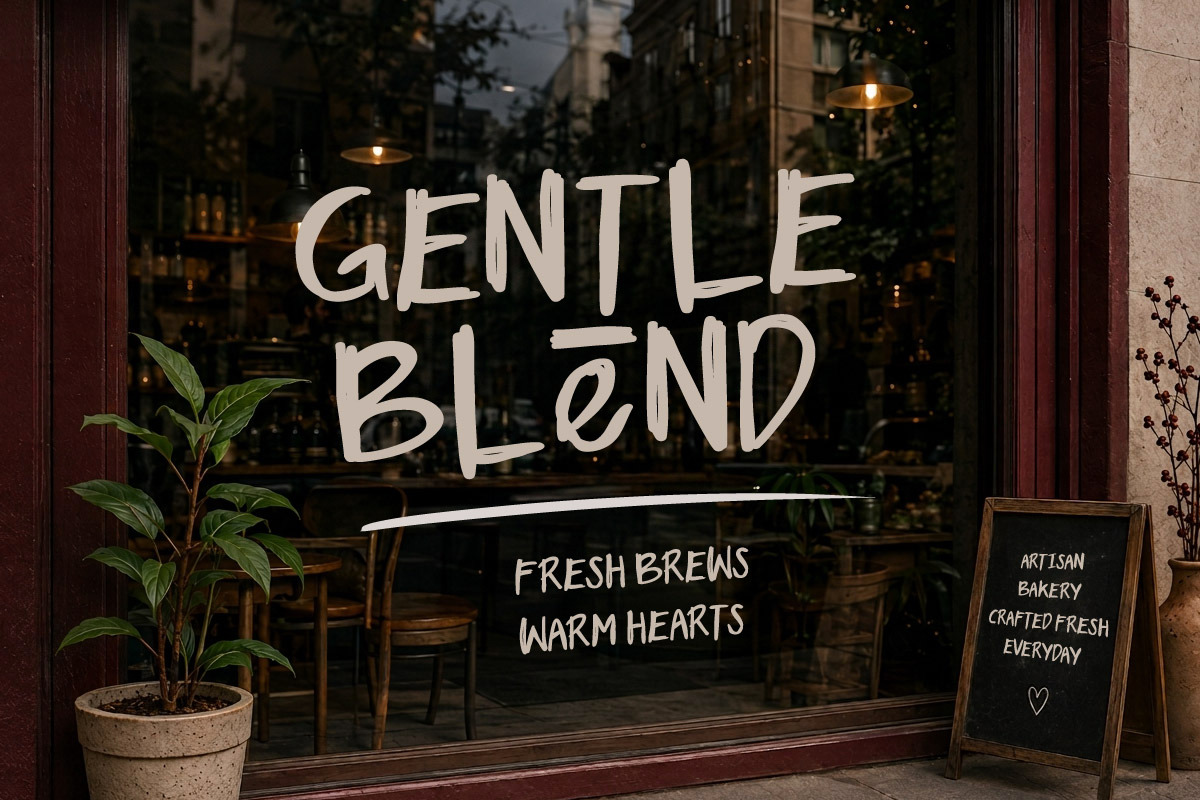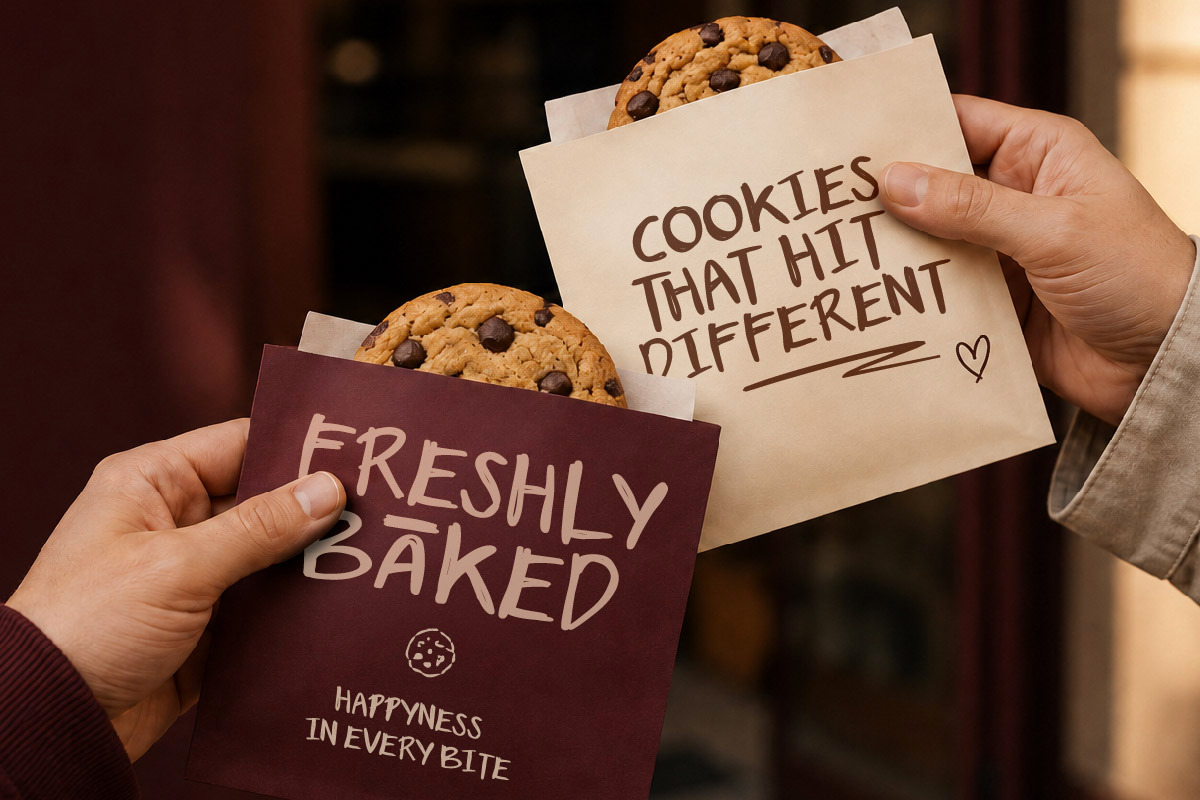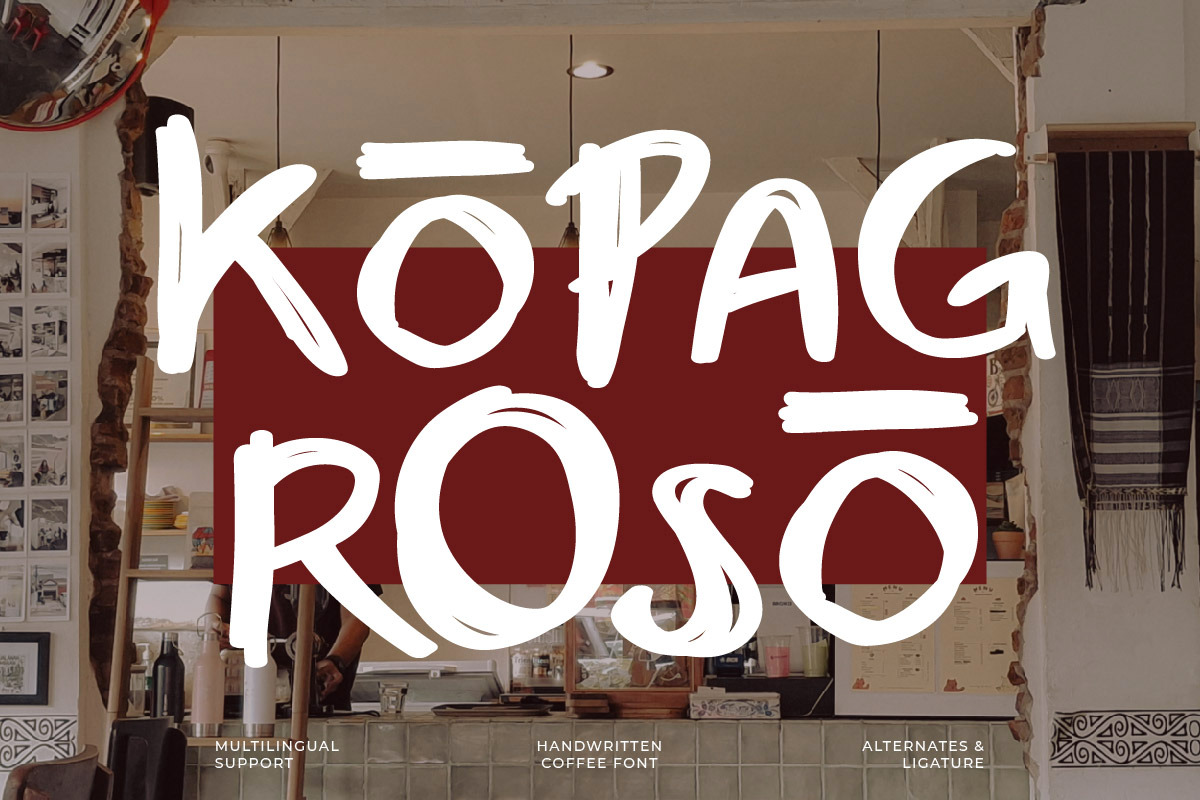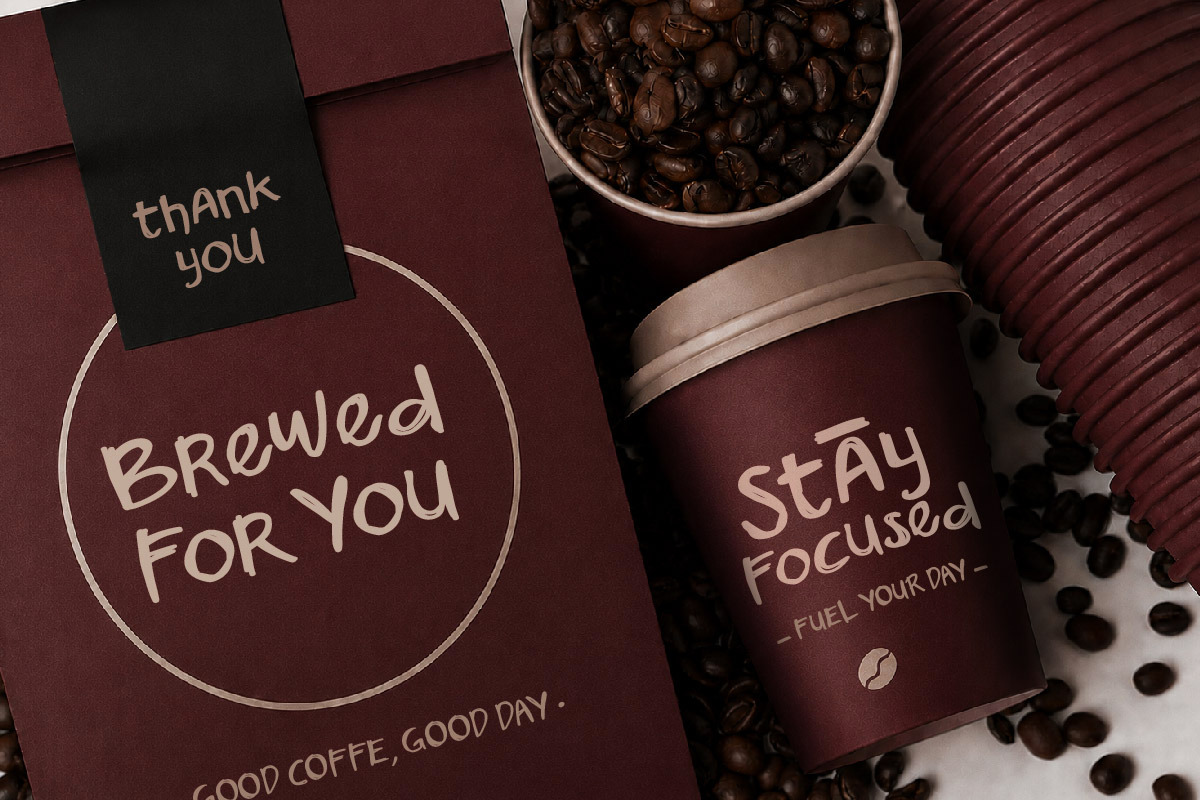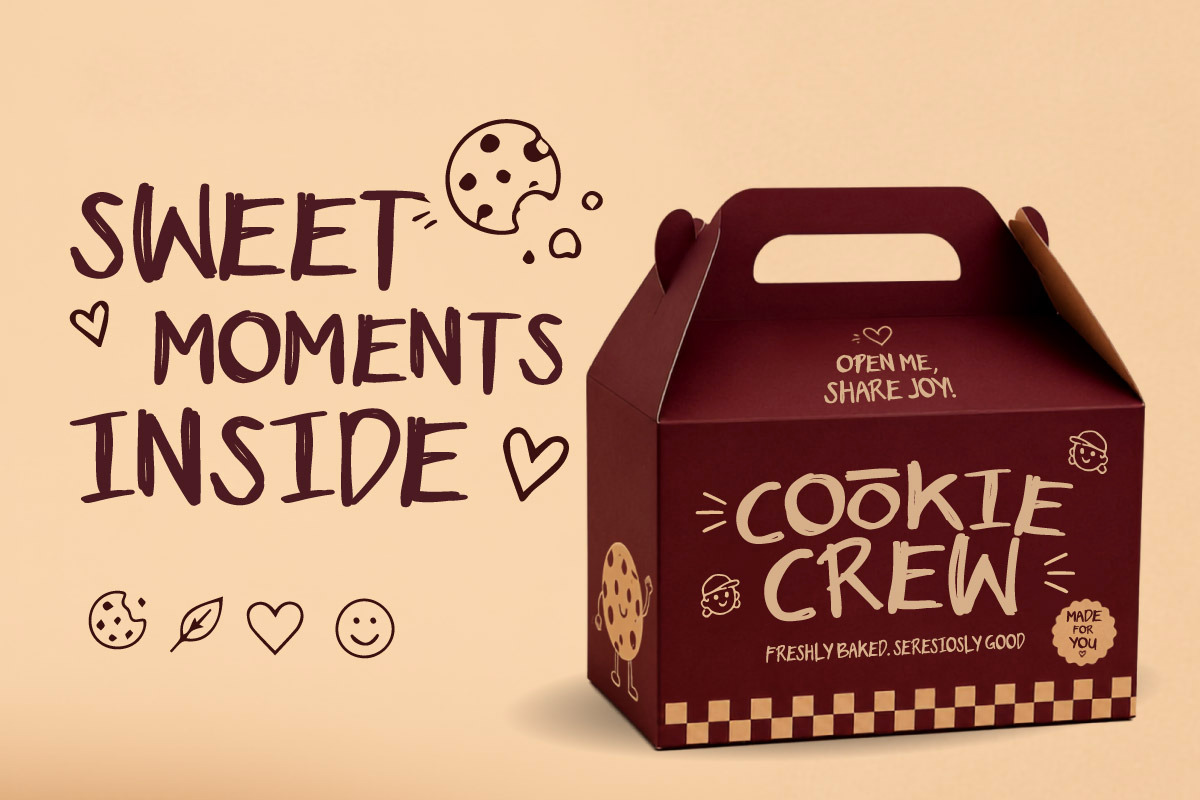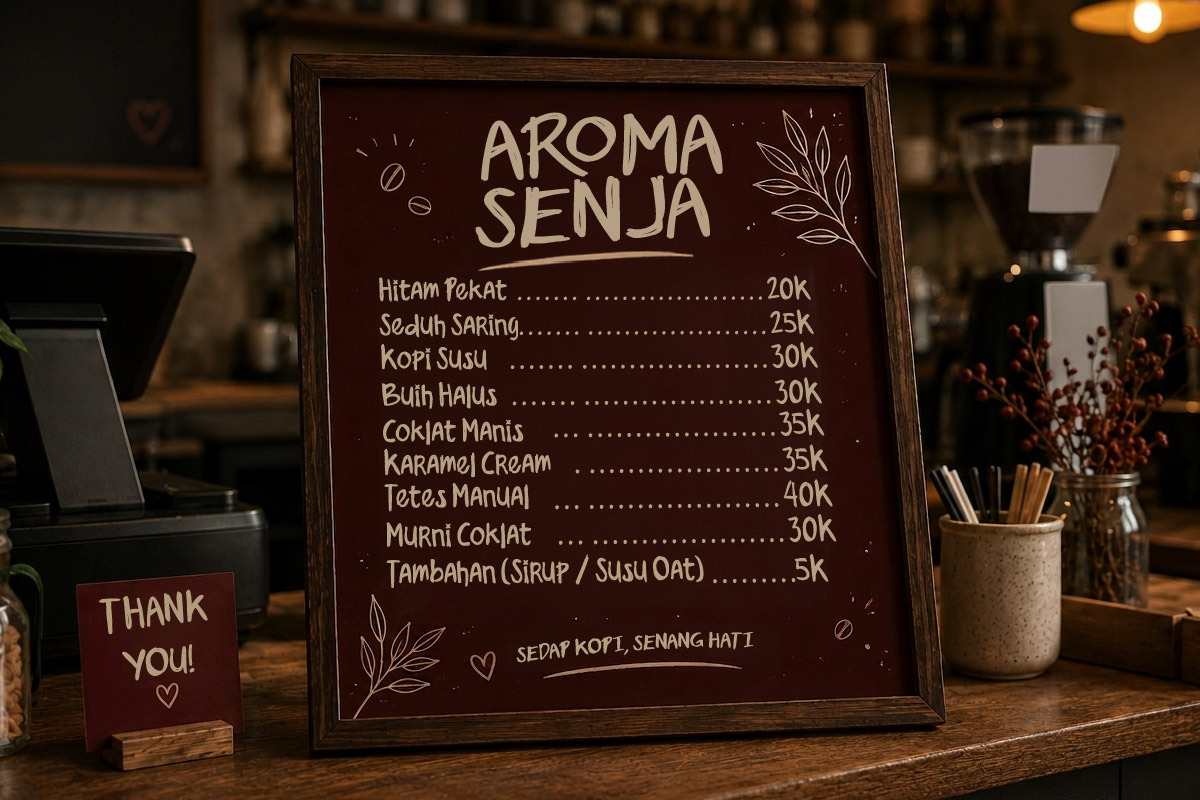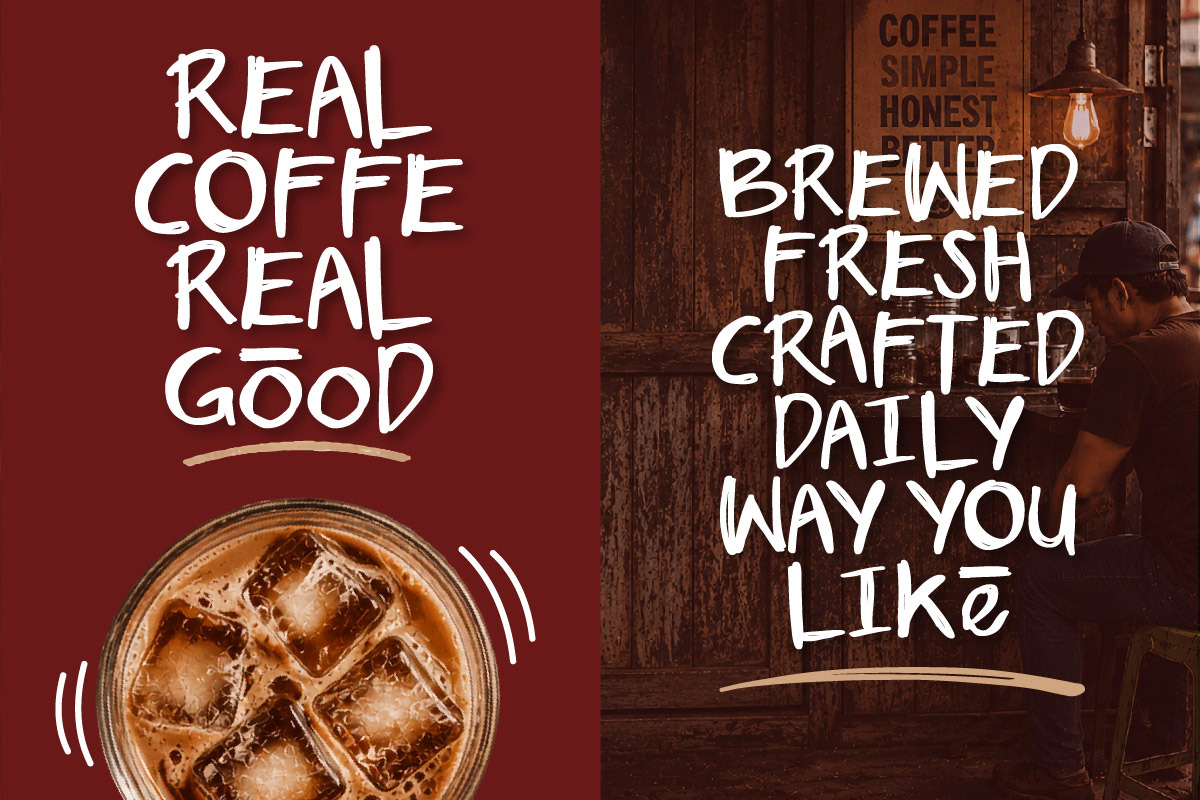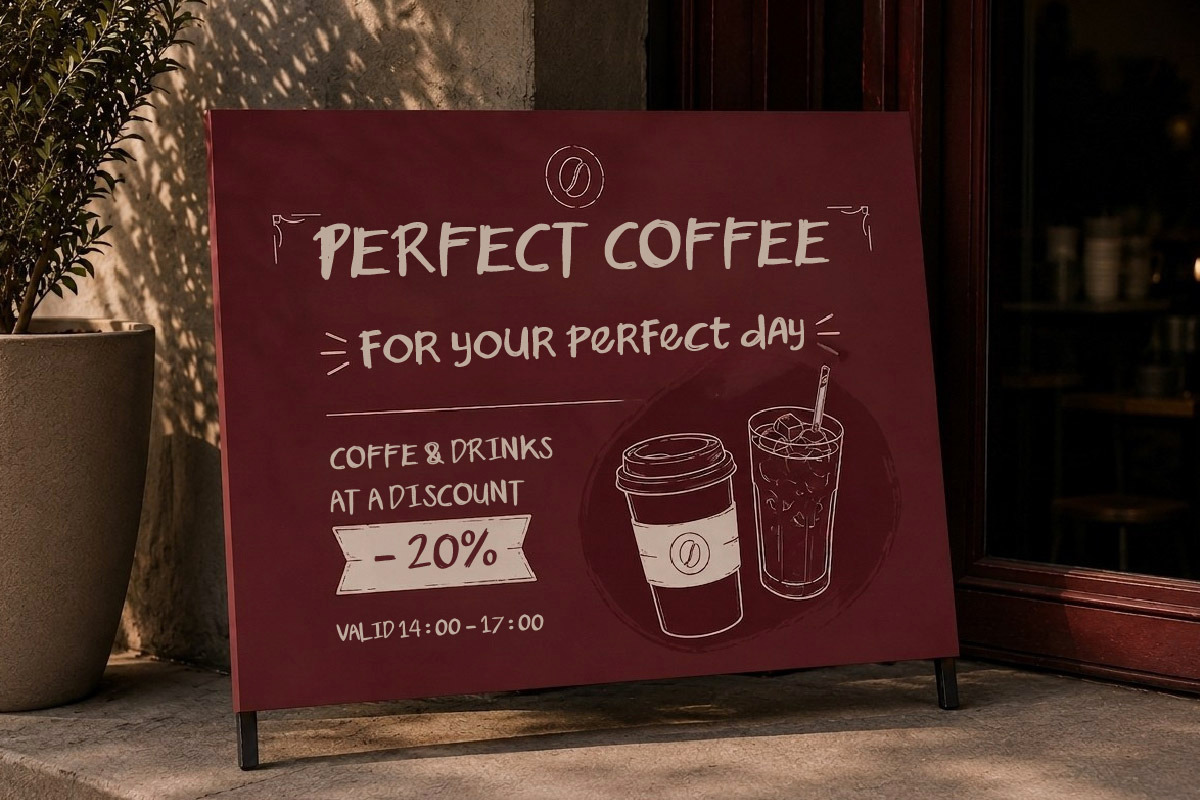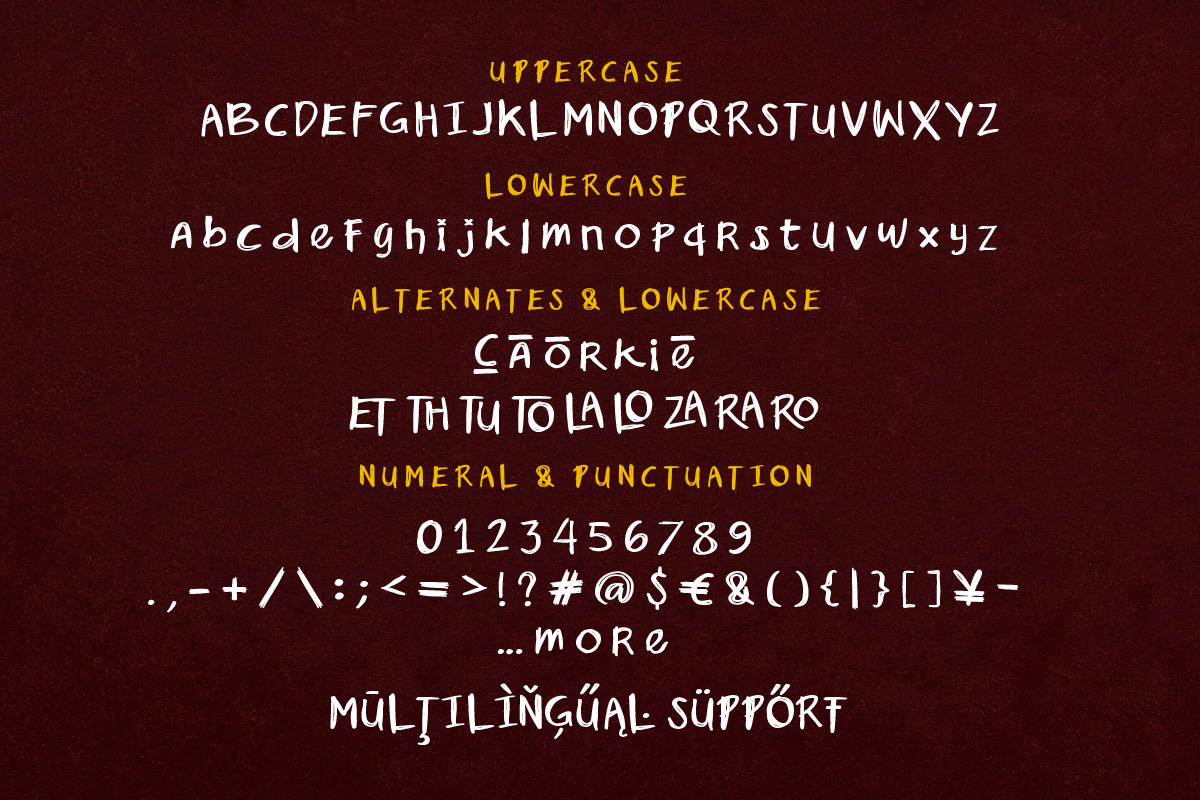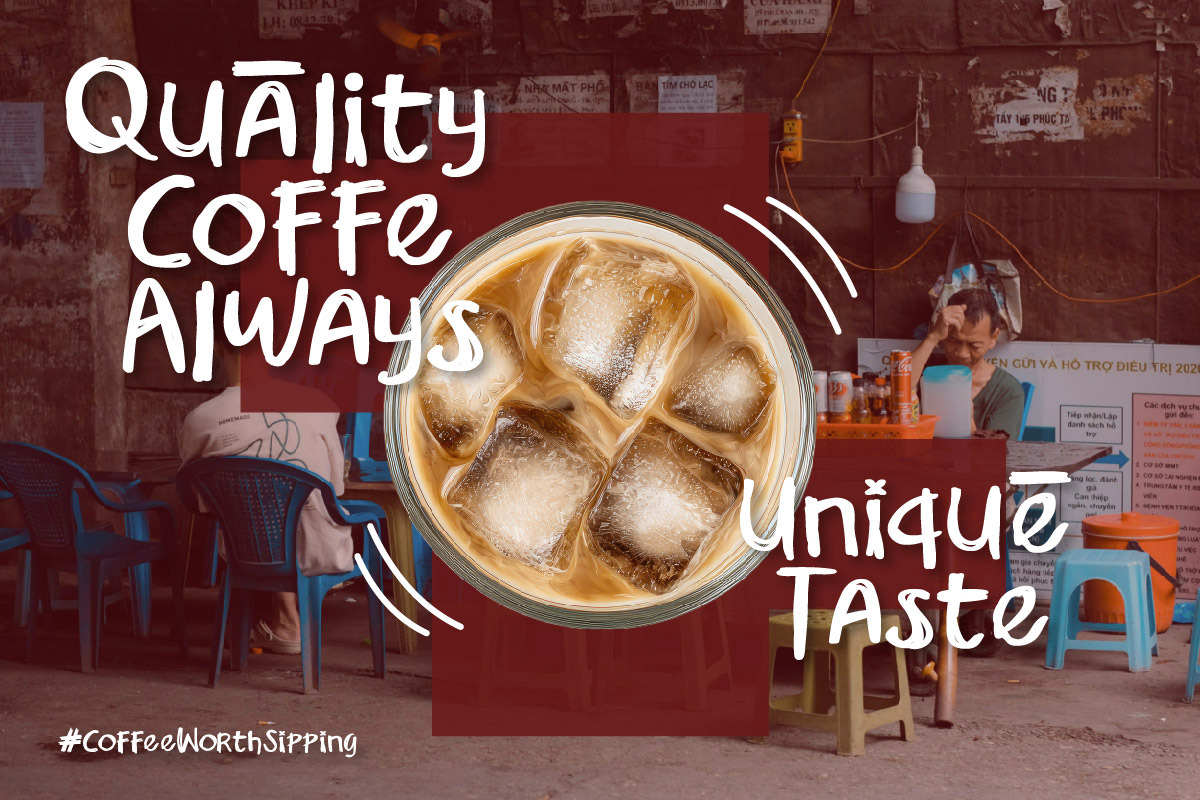
Kopag Roso - Handwriting Coffe Font
Kopag Roso is a warm, playful, and organic handwriting typeface created to bring an authentic personality to coffee and culinary branding. Its expressive letterforms create a handmade, friendly, and cozy feeling, making it a great choice for businesses looking to build a welcoming and memorable visual identity.
Inspired by the atmosphere of coffee shops, local roasteries, bakeries, and artisanal culinary brands, Kopag Roso works beautifully for logos, coffee shop signage, menus, packaging, promotional artwork, and various branding projects. Its casual yet distinctive character adds a personal craft-inspired touch to any design.
Use Kopag Roso to create visuals that feel warm, relaxed, creative, and appetizing. Perfect for coffee branding, bakery packaging, café identity, menu design, product labels, merchandise, and social media content that needs a memorable handwritten personality.
- Multilingual Support: Fully supports 85+ languages, including:
Afrikaans, Albanian, Asu, Basque, Bemba, Bena, Breton, Catalan, Chiga, Cornish, Croatian, Czech, Danish, Dutch, Embu, English, Esperanto, Estonian, Filipino, Finnish, French, Friulian, Galician, Gusii, Hungarian, Indonesian, Irish, Italian, Kabuverdianu, Kalenjin, Kamba, Kikuyu, Kinyarwanda, Latvian, Lithuanian, Lower Sorbian, Luo, Luxembourgish, Luyia, Machame, Makhuwa-Meetto, Makonde, Malagasy, Maltese, Manx, Meru, Morisyen, North Ndebele, Norwegian Bokmål, Norwegian Nynorsk, Nyankole, Oromo, Polish, Portuguese, Quechua, Romanian, Romansh, Rombo, Rundi, Rwa, Samburu, Sango, Sangu, Scottish Gaelic, Sena, Serbian, Shambala, Shona, Slovak, Slovenian, Soga, Somali, Spanish, Swahili, Swedish, Swiss German, Taita, Teso, Turkish, Upper Sorbian, Uzbek (Latin), Volapük, Vunjo, Walser, Zulu.